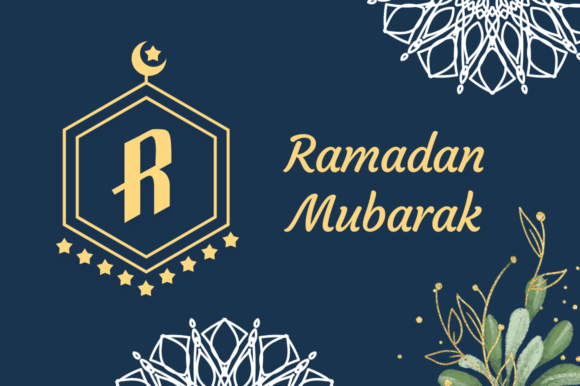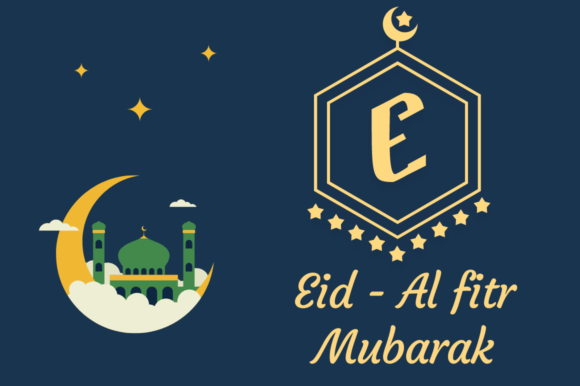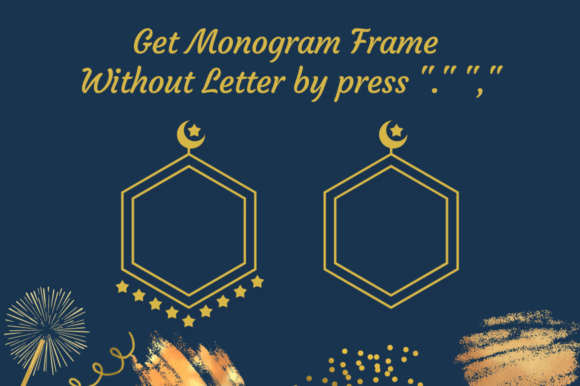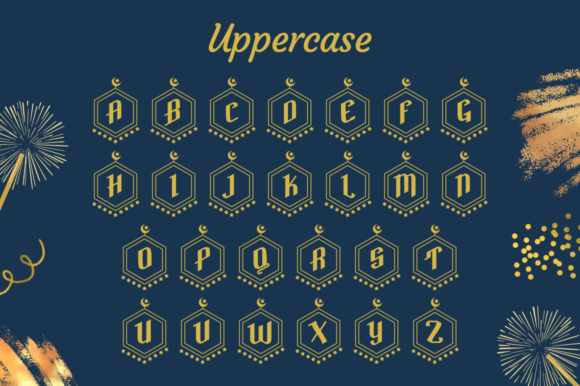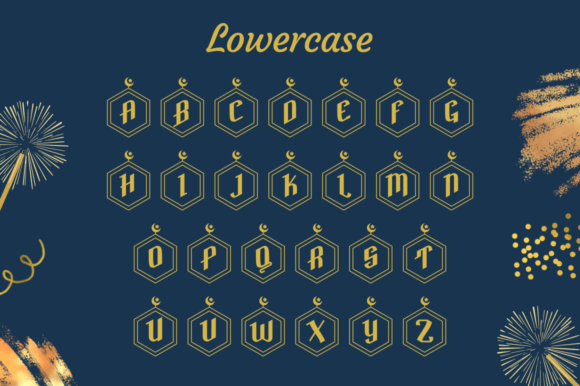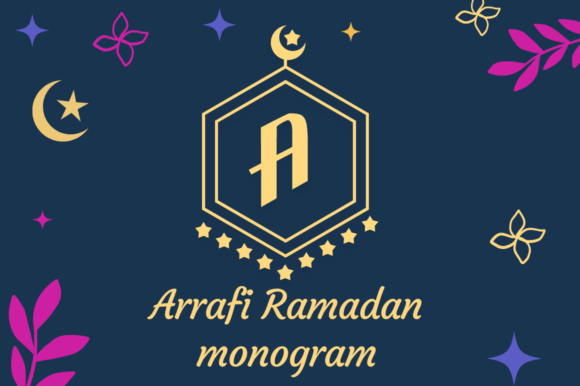
Discover the Elegance of Arrafi Ramadan Monogram Font
I’ll never forget the time I was working on a Ramadan-themed invitation project for a client. I had spent hours brainstorming ideas, sketching out designs, and experimenting with different color palettes. But something was missing – the perfect font. That’s when I stumbled upon the Arrafi Ramadan Monogram Font. It was love at first sight! ✨ The elegant and stylish design, with its clean lines and modern aesthetic, instantly elevated my project to the next level.
• ✨ Elegant and stylish design that’s perfect for Ramadan-themed projects
• ✅ Clean lines and modern aesthetic that make it versatile for various design applications
• 💫 Beautiful monogram designs that add a touch of sophistication to any project
• 🎉 Easy to use and pairs well with a variety of fonts and design elements
While the Arrafi Ramadan Monogram Font is an excellent choice for many design projects, there are a few things to keep in mind. ⚠️ Some users may find that the font is a bit limited in terms of variations, but the existing designs are so well-crafted that it’s hardly a drawback. 🤔 Additionally, the font may not be suitable for body text or long-form content, as it’s primarily designed for titles, headings, and decorative elements.
The Designer Inspiration Behind Arrafi Ramadan Monogram Font
The Arrafi Ramadan Monogram Font was designed with the Ramadan theme in mind. The designer aimed to create a font that would capture the essence of this special time of year, with its elegant and stylish design. The font’s clean lines and modern aesthetic make it perfect for use in a variety of design applications, from invitations and cards to branding materials and other visual content.
Q: What is the Arrafi Ramadan Monogram Font?
A: The Arrafi Ramadan Monogram Font is a decorative typeface designed with the Ramadan theme in mind. It’s characterized by its elegant and stylish design, with clean lines and a modern aesthetic.
Q: Is the Arrafi Ramadan Monogram Font easy to use?
A: Yes, the Arrafi Ramadan Monogram Font is easy to use and pairs well with a variety of fonts and design elements.